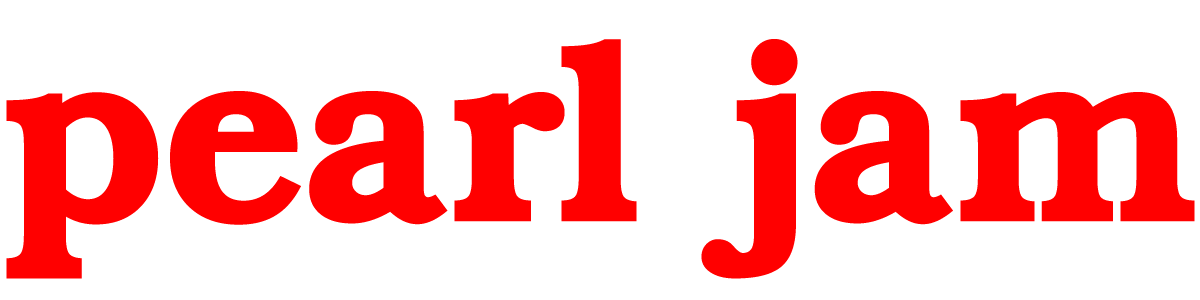
ITC Bookman Std Demi by ITC is a font based on portions of the logo from the Pearl Jam album Vitalogy.
ITC Bookman, created by Edward Benguiat, was designed to echo the classic Bookman typefaces while offering greater versatility and a modern touch. It preserves the original’s key characteristics but introduces a larger x-height and moderate stroke contrast, enhancing readability across various applications. Unlike many other typefaces, ITC Bookman’s italics feature true cursive designs rather than simple slanted roman forms, adding a distinctive and elegant flair to its overall style.